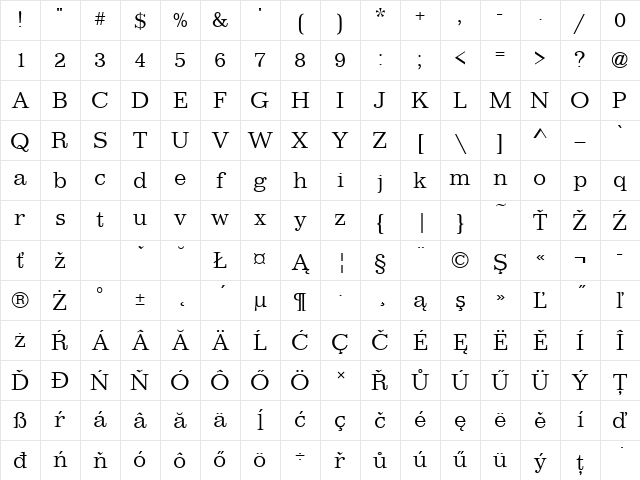
ImpressumTEELig Regular Free Font
Design Context for ImpressumTEELig
ImpressumTEELig is a composed and adaptable typeface that performs quietly and consistently across a wide range of design contexts.